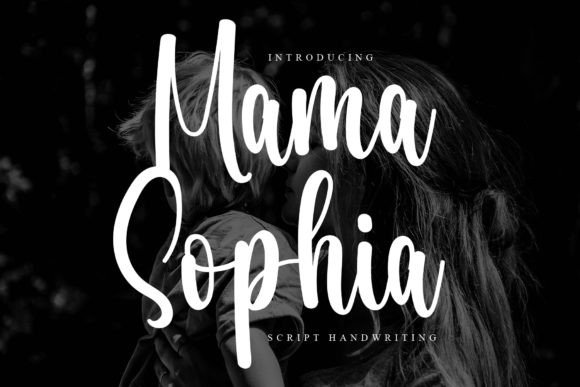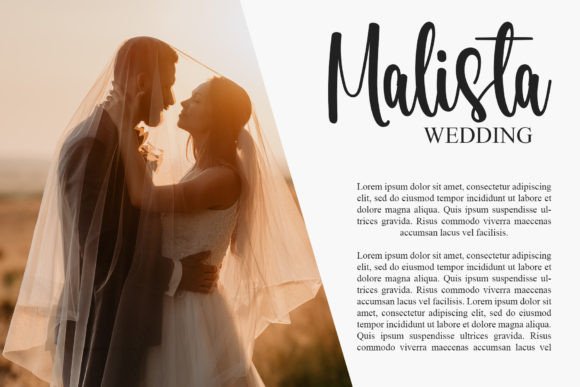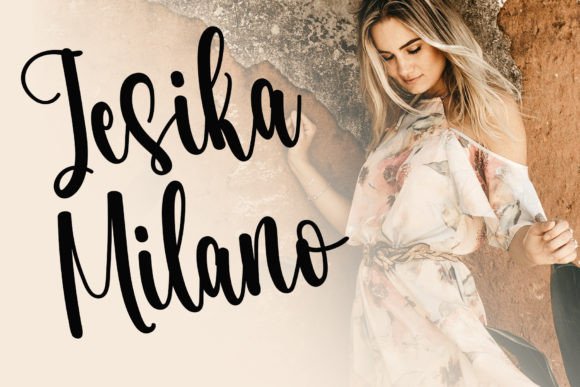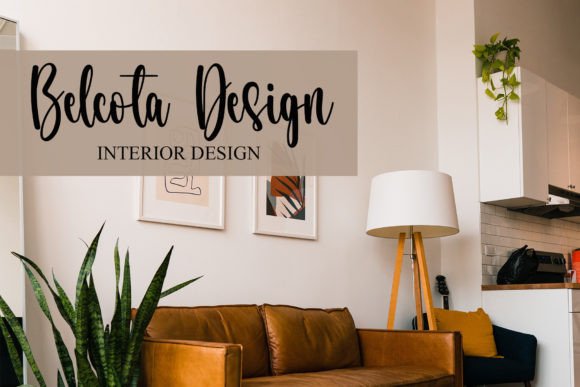
Mama Sophia Font: Elegant Handwritten Script for Wedding Designs
About the Mama Sophia Font
The Mama Sophia Font offers a perfect balance of form and function for your design needs. Mama Sophia is a delicate, elegant, and flowing handwritten font perfect for your favorite projects. Fall in love with its incredibly distinct and timeless style, and use it to create spectacular designs!
Mama Sophia’s elegant, flowing style is ideal for projects requiring a touch of refined femininity. It excels in applications such as wedding invitations, stationery, logos for beauty or fashion brands, and short-form text on packaging or posters. However, its delicate nature makes it less suitable for body text or long paragraphs, and its readability suffers at smaller sizes.
Consider pairing Mama Sophia with a clean sans-serif like Lato or Open Sans for a balanced contrast, or a classic serif like Garamond or Playfair Display for a more traditional feel. A simple geometric sans-serif would also create a striking juxtaposition, modernizing the script’s classic charm.
The font’s overall personality is sophisticated and graceful, conveying a sense of timeless charm and understated luxury. Avoid using it in contexts requiring high readability or a bold, modern aesthetic.
Mama Sophia Font Usage Examples
Mama Sophia Font Example